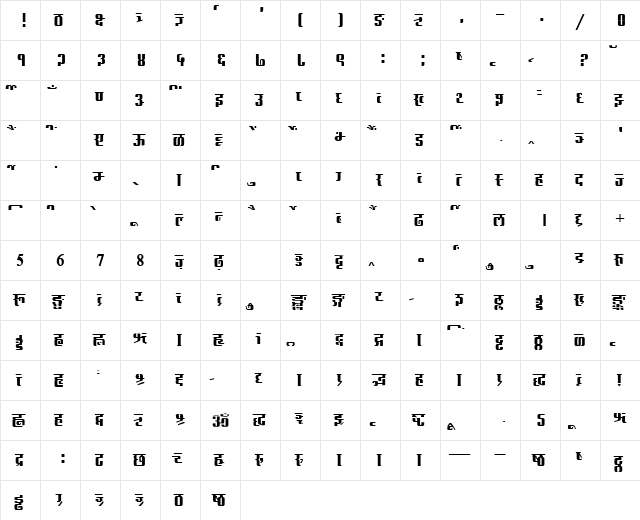
AkrutiDevAkshay Bold
Design Context for AkrutiDevAkshay Typeface
AkrutiDevAkshay takes a measured approach to typography — its balanced proportions and neutral character make it a reliable workhorse for both digital and print work. The heavy weight commands attention and anchors typographic hierarchies.